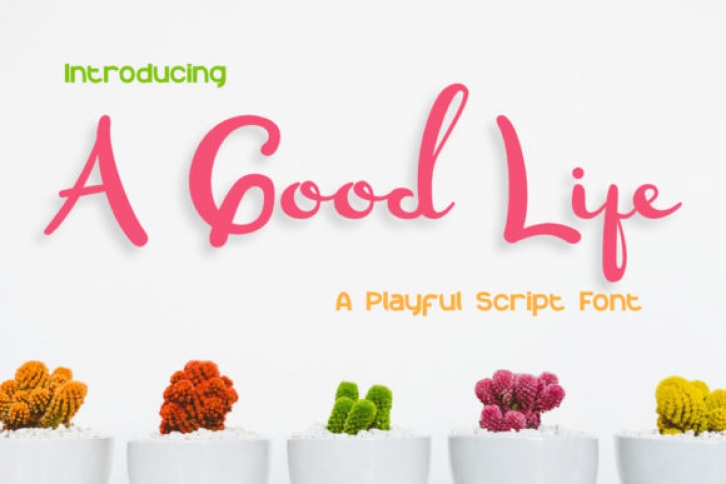
A Good Life is a playful and fun handwritten font. Whether you’re using it for crafting, digital designing, presentations or greeting cards making, it’s perfect!